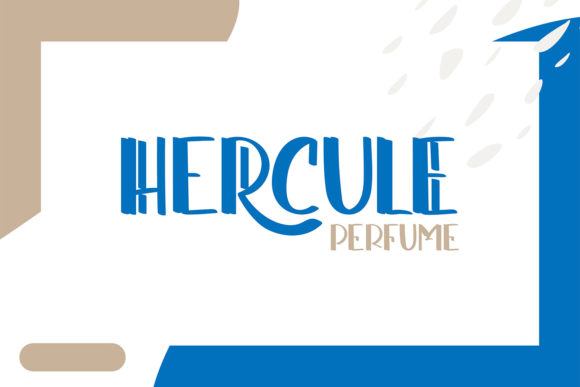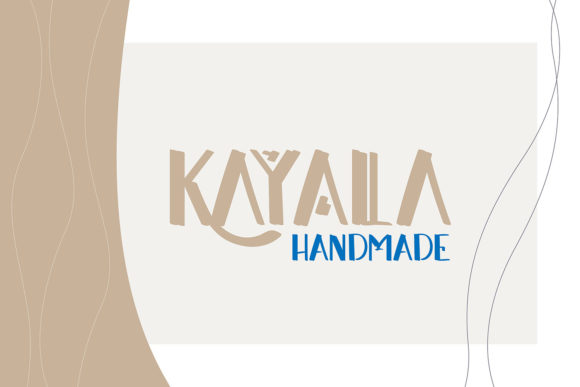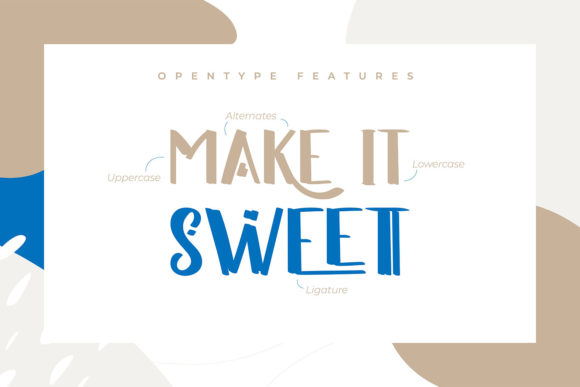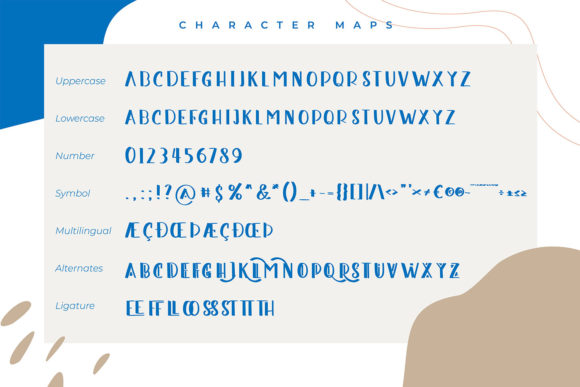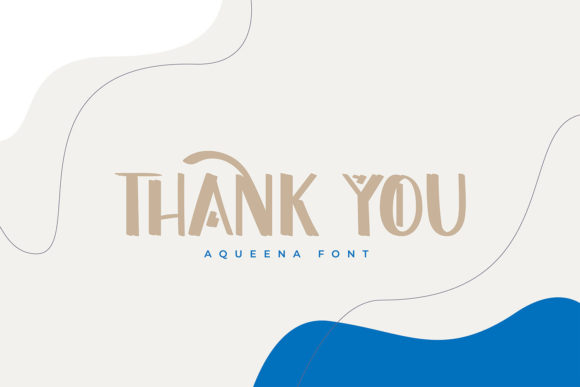
The Ultimate Guide to Aqueena Font: A Fun and Trendy Display Font
I’ll never forget the time I was working on a project for a client who wanted a bold, eye-catching font to make their brand stand out. As I scrolled through my font library, I stumbled upon Aqueena – a fun and trendy display font that instantly caught my attention. Its unique charm and versatility made it the perfect fit for the project, and I knew right then that I had to share it with fellow designers and creative hobbyists.
An Honest Review of Aqueena Font
What I Love About Aqueena ✨
- 💥 Aqueena is a bold and attention-grabbing font that’s perfect for making a statement.
- 🎨 Its unique design and quirky feel make it ideal for creative projects, such as logos, posters, and social media graphics.
- 📚 Aqueena is highly versatile and can be used for various purposes, including headings, t-shirts, letterhead, signage, labels, and more.
- 👍 The font is easy to read, even in large sizes, making it perfect for signage and display purposes.
While Aqueena is an amazing font, there are a few things to keep in mind:
- 🤔 Aqueena is a display font, so it’s best used in large sizes (24pt or higher). Using it in smaller sizes may make it harder to read.
- ⚠️ Some of the font’s unique features, such as swashes and alternates, may not work well in all applications or platforms.
A Practical Guide to Using Aqueena Font
The Backstory of Aqueena Font
Aqueena was designed by a team of creatives who wanted to create a font that would make a statement. Inspired by the world of art and design, they crafted a font that’s both bold and elegant. With its unique features and quirky feel, Aqueena is perfect for designers and creative hobbyists who want to add some personality to their projects.
Q: What is Aqueena font best used for?
A: Aqueena is a versatile font that can be used for various purposes, including logos, headings, t-shirts, letterhead, signage, labels, and more.